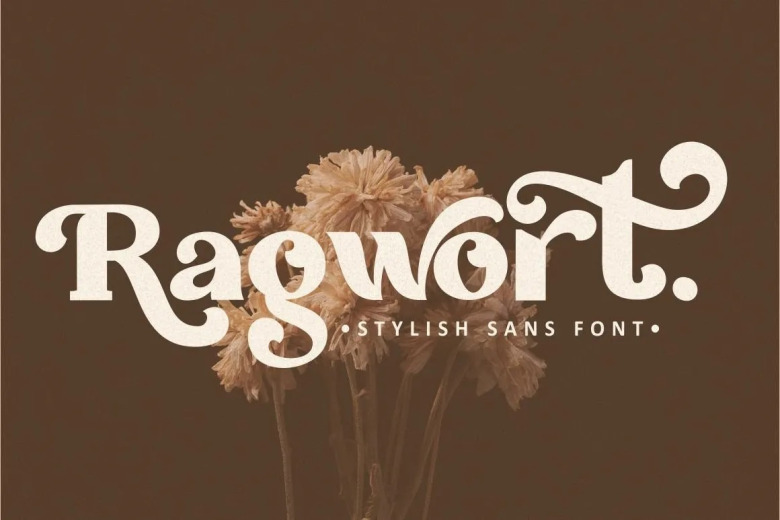
Ragwort Font
Ragwort is a Display Sans Serif Font. More fun, more trendy, and more lively. Royal Lodge font, inspired by the extra bold font style and well balanced curves. On this font, you will get a surprise from Alternate.
About work, your work will be even more beautiful to look at. Added to be perfect for a professional touch, which makes this font even more unique and classic.
Ragwort Sans Serif Font